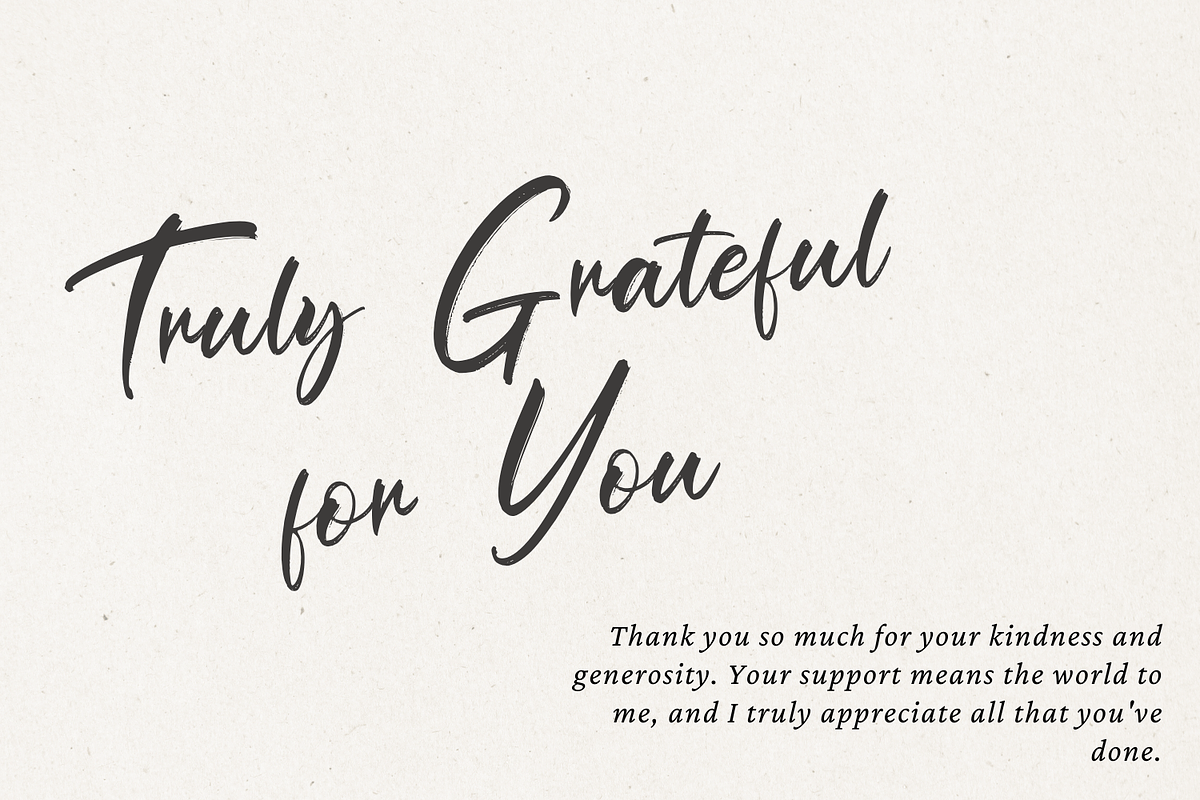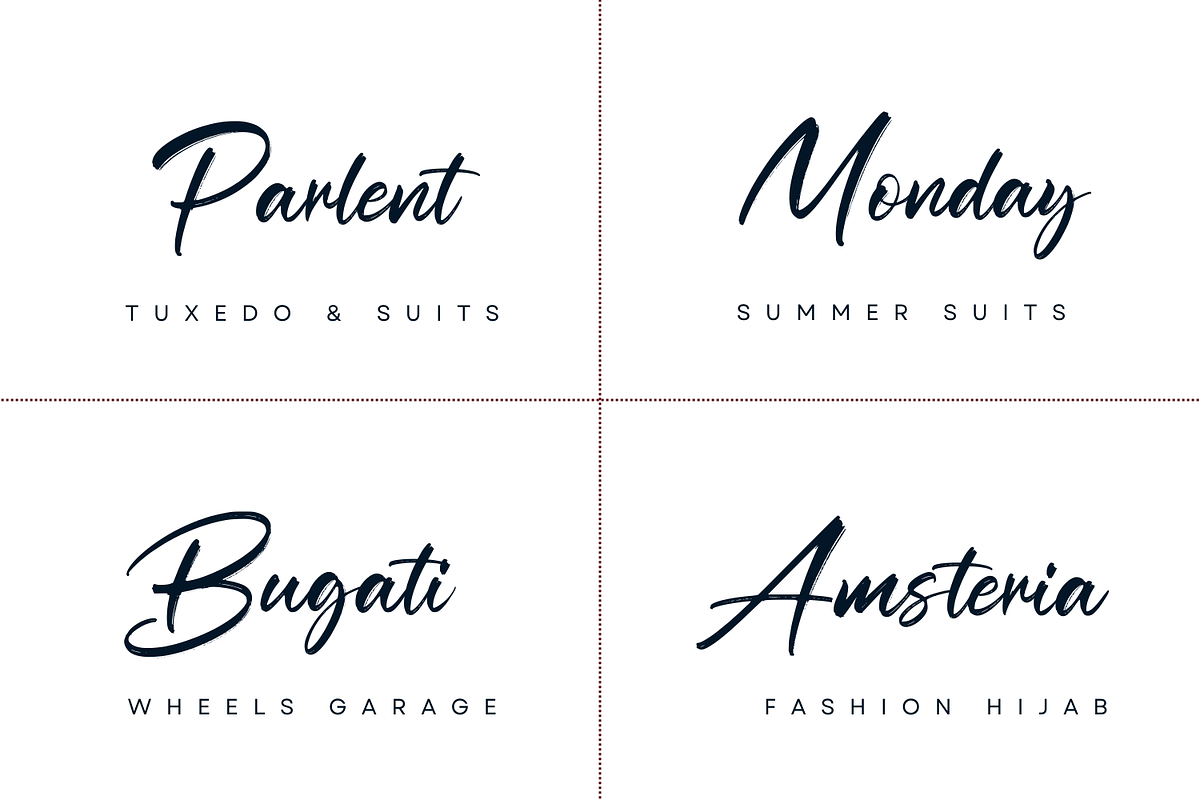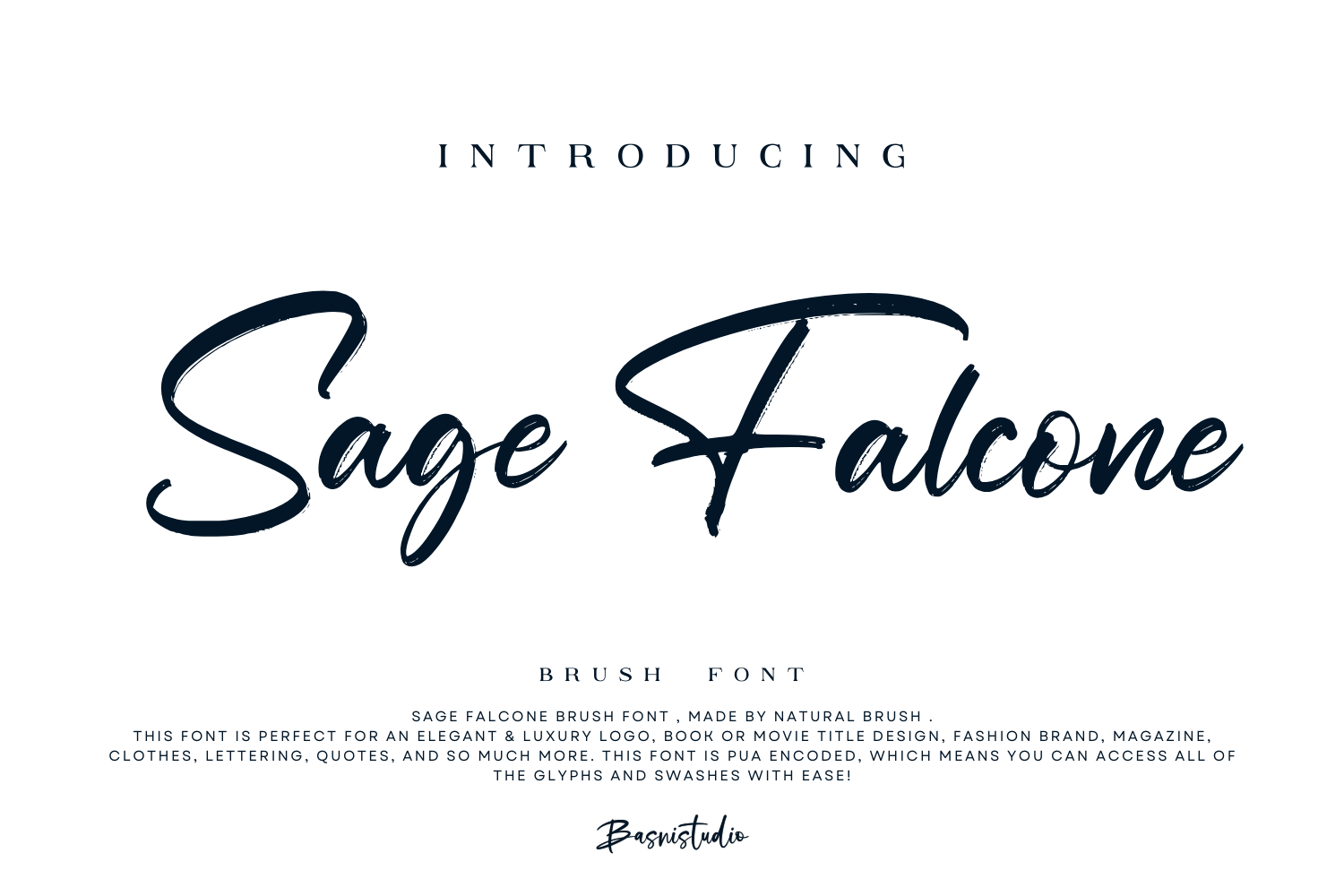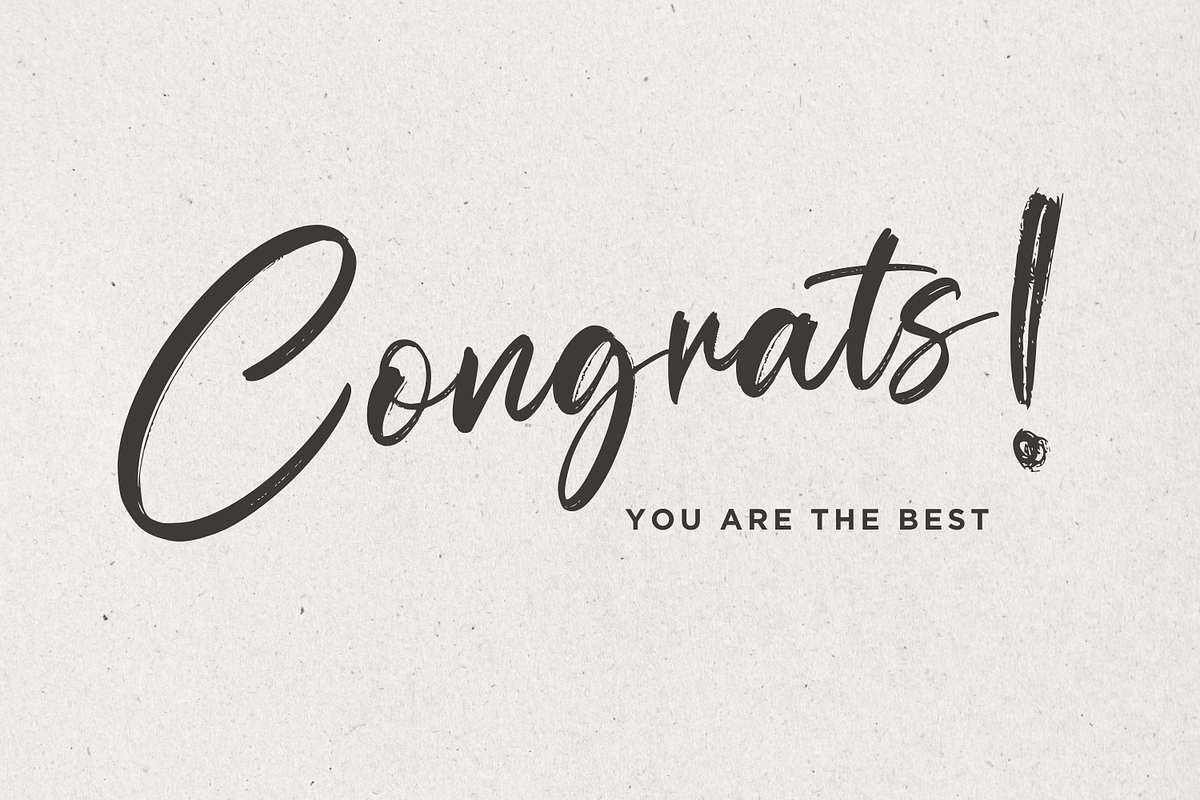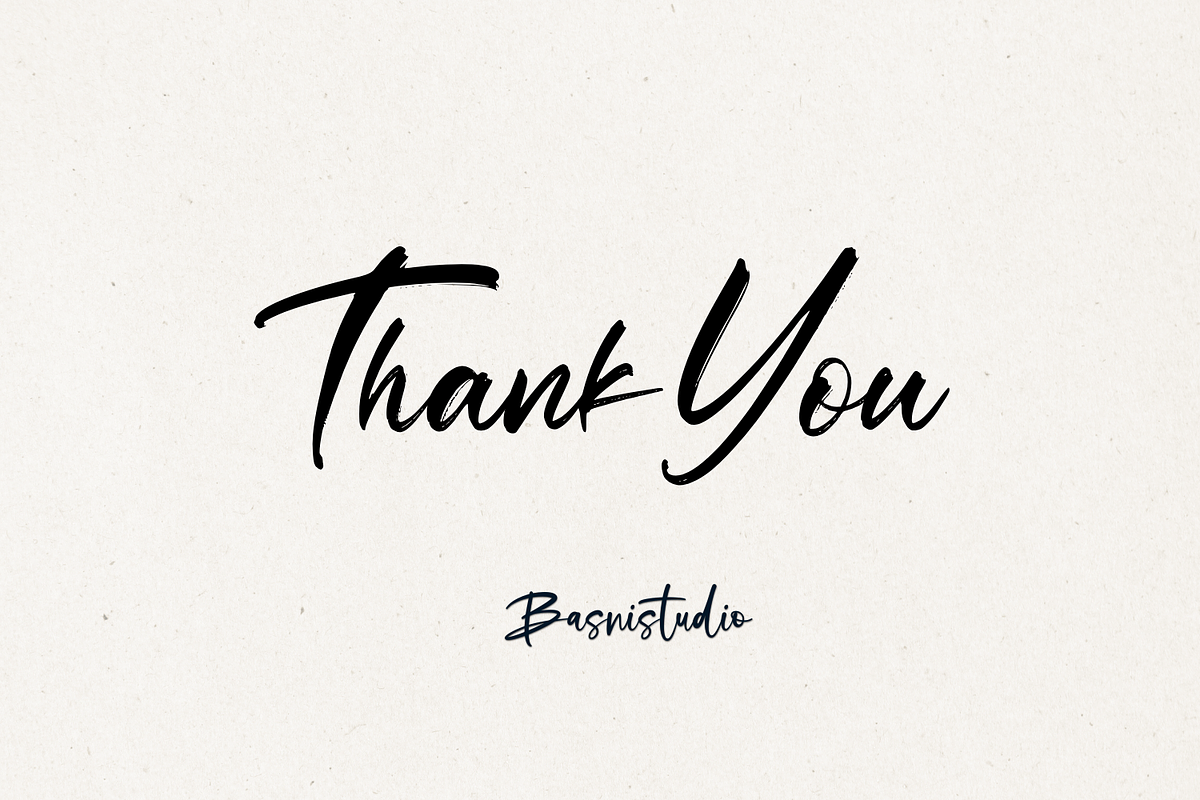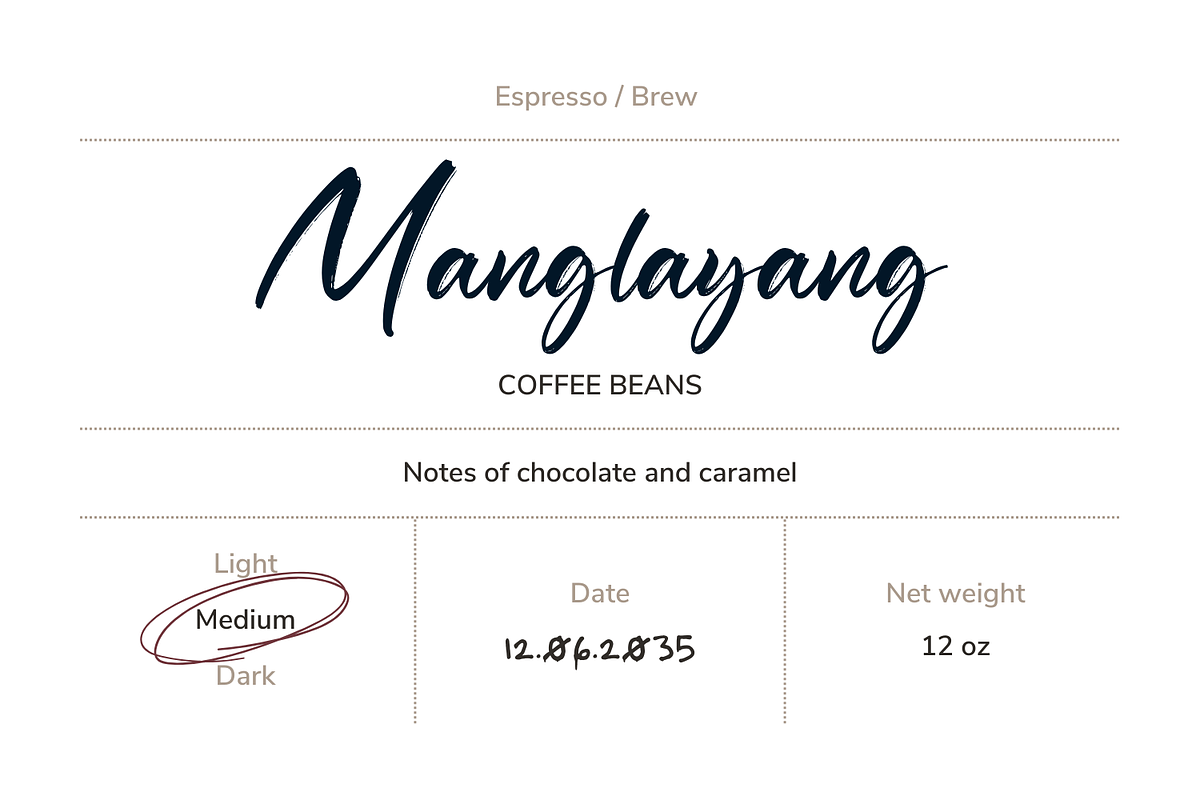
Sage Falcone Brush Font
Introducing Sage Falcone Brush Font
Sage Falcone Brush Font , made by Naturaly Brush & Clean Style.
This Font is perfect for an magazine, clothes, quotes, and so much more. This font is PUA encoded, which means you can access all of the glyphs.